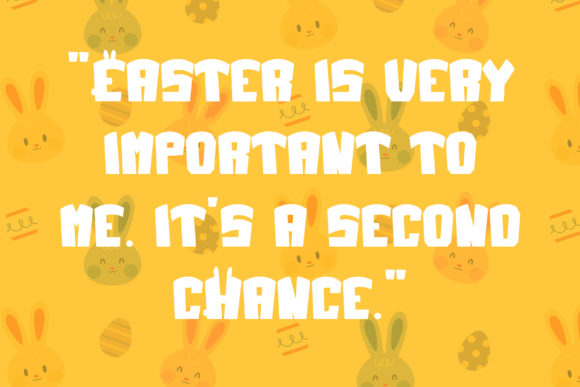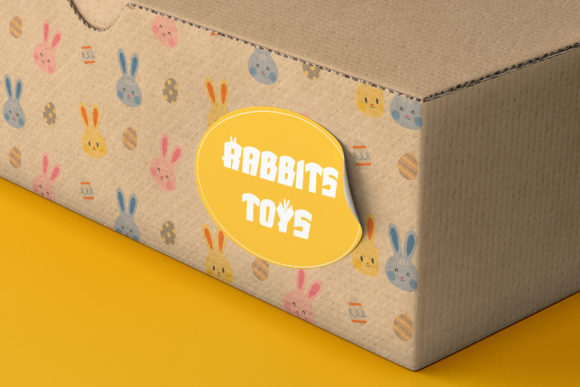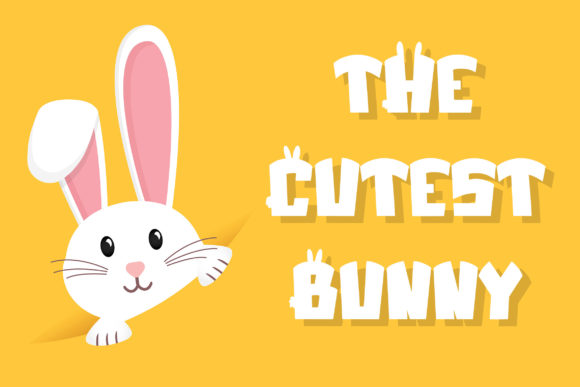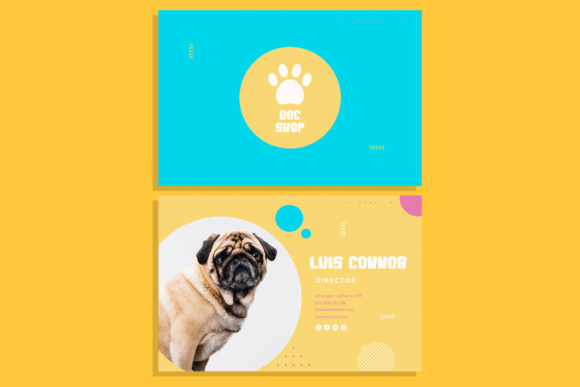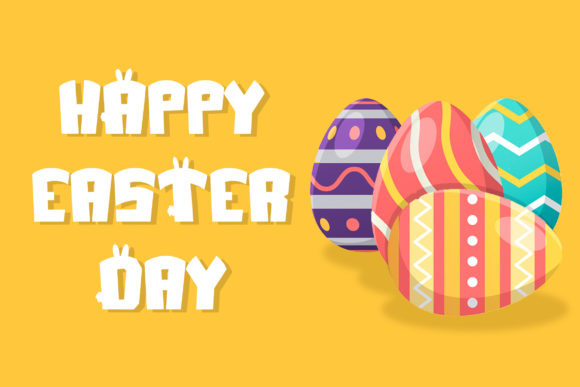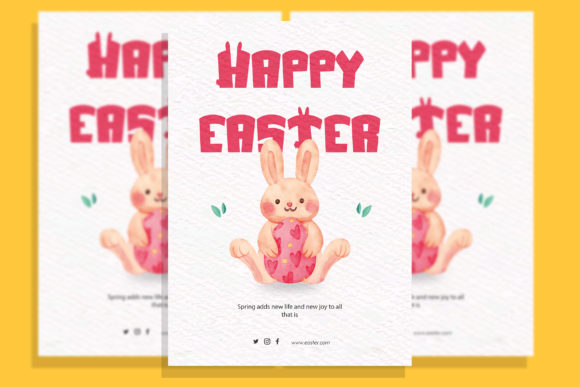
Introduction to Jumpy Bunny Font
Jumpy Bunny is a fun, playful and thick lettered display font.
It embodies playfulness and authenticity and is the perfect choice for any children activity or school project This font is PUA encoded which means you can access all of the glyphs and swashes with ease.
Key Features of Jumpy Bunny Font
Why Choose Jumpy Bunny Font?
Jumpy Bunny Font offers exceptional quality and versatility, making it a valuable addition to your design toolkit. Whether you’re creating for personal projects or commercial use, Jumpy Bunny Font delivers professional results.